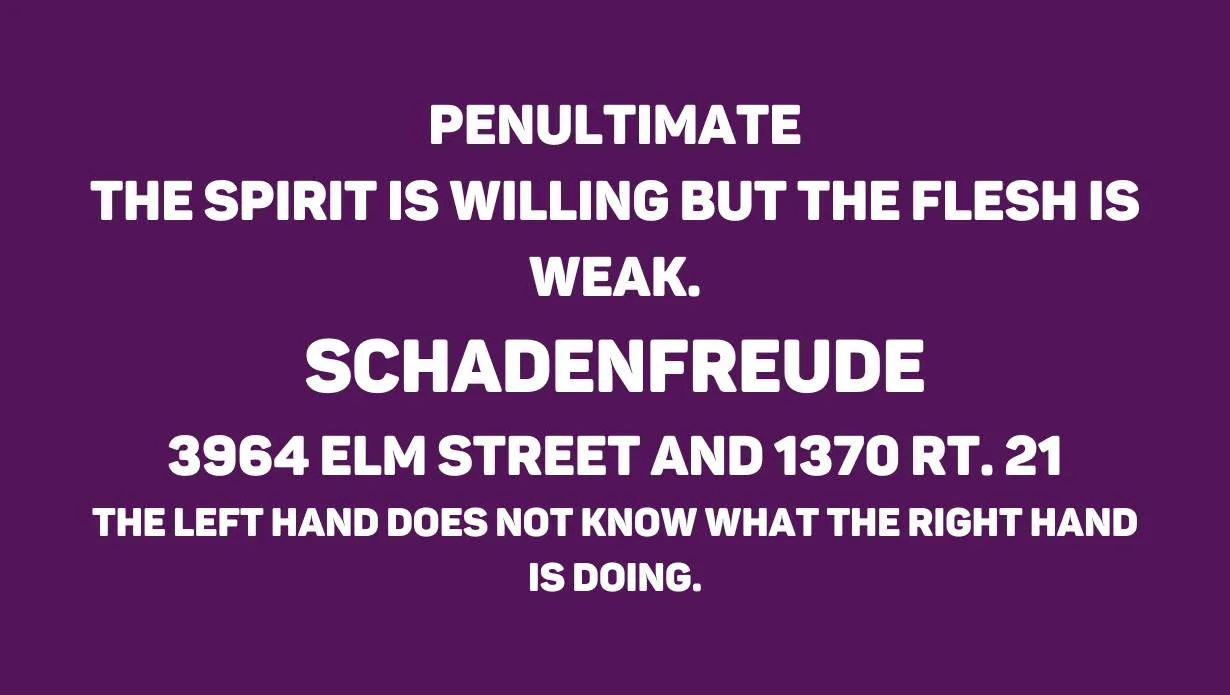
Let’s now delve into the modern and elegant world of Panton, a font created by the skilled typographer Ivan Petrov. Belonging to the sans-serif font category, Panton is tailored for a polished and up-to-date appearance.
Its geometric shapes and balanced proportions make it suitable for a variety of design applications, from corporate branding to editorial layouts. Panton offers different weights to provide flexibility in emphasizing various elements within your designs.
- Panton Extra Light
- Panton Light
- Panton Regular
- Panton Medium
- Panton Bold
- Panton Extra Bold
| Designer | Svetoslav Simov |